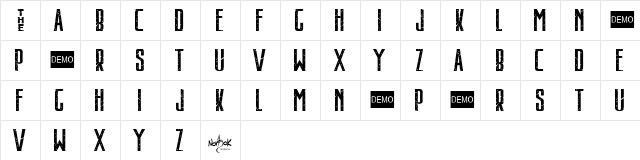
Stairs People DEMO Regular
| Designer | Thomas W. Otto |
Design Context for Stairs People DEMO Typeface
Stairs People DEMO is a composed and adaptable typeface that performs quietly and consistently across a wide range of design contexts.